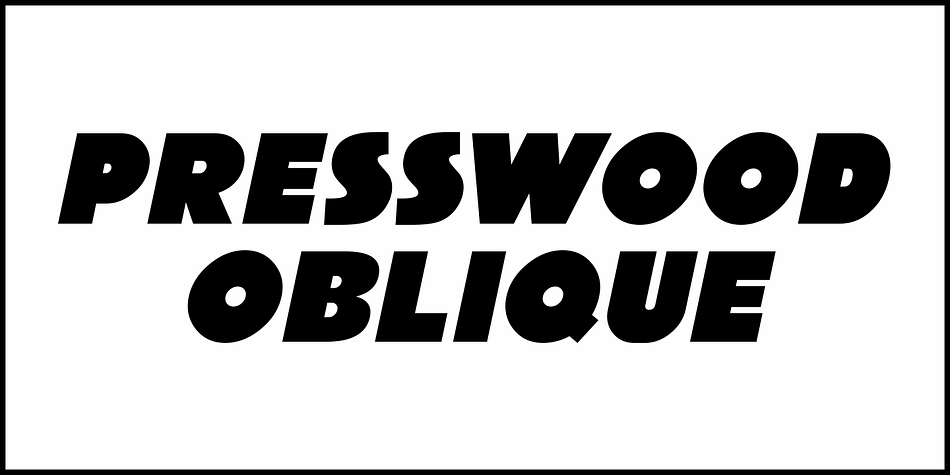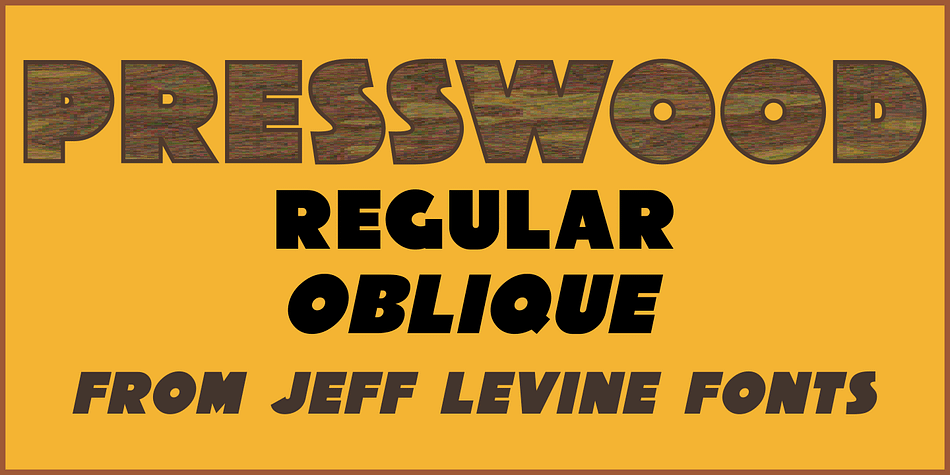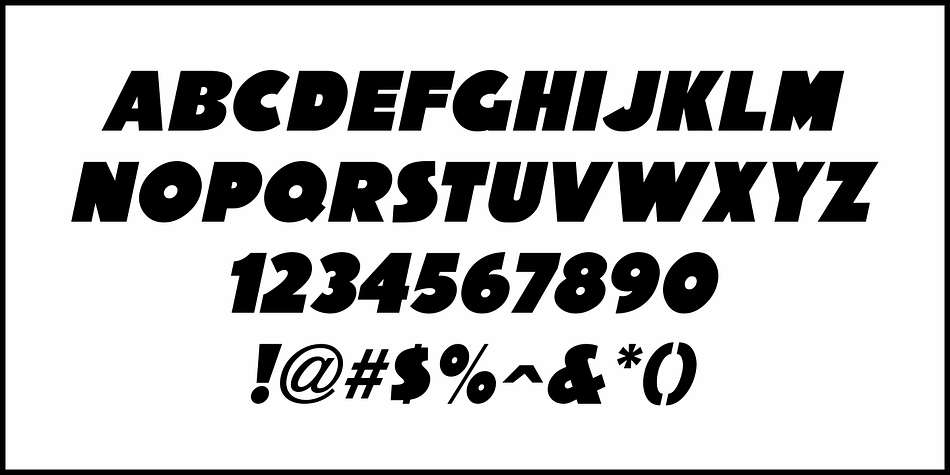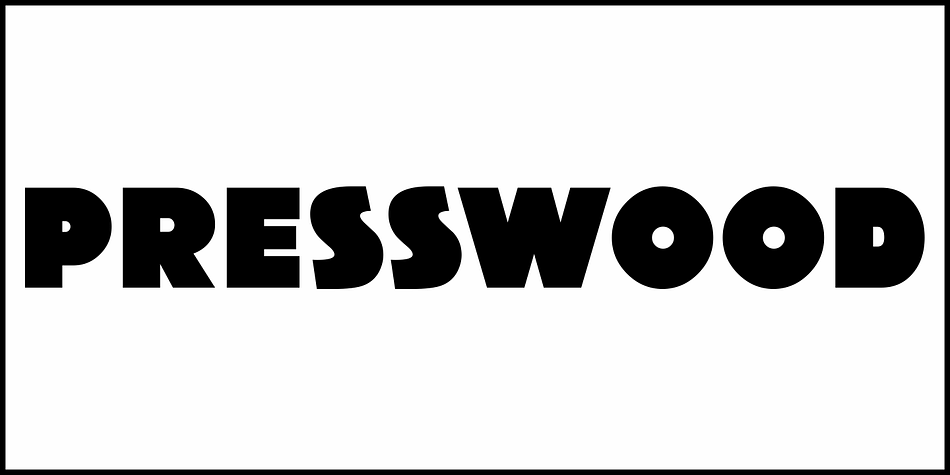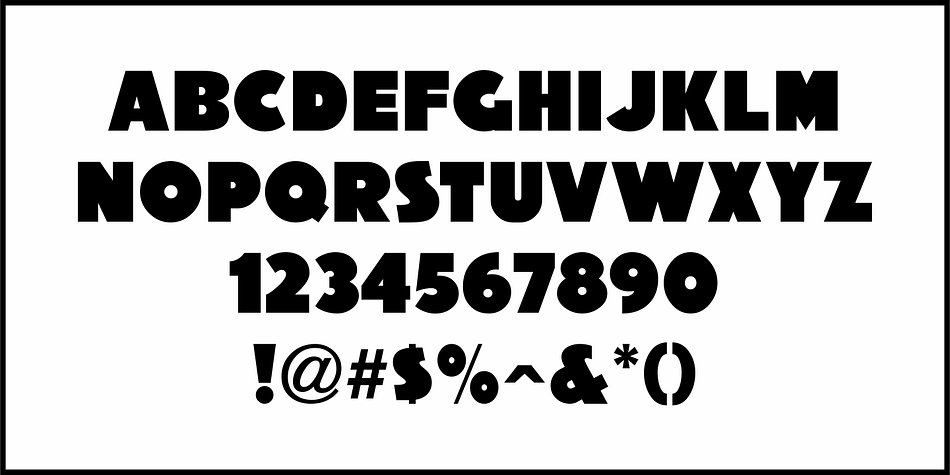
PRESSWOOD JNL
Designed by Jeff Levine, Presswood JNL is an art deco and display sans font family. This typeface has two styles and was published by Jeff Levine Fonts.
Presswood JNL was modeled from the title font used on the cover of a specimen book issued by the Delittle Wood Type Company of York, England.
This bold, friendly sans serif is available in both regular and oblique versions.